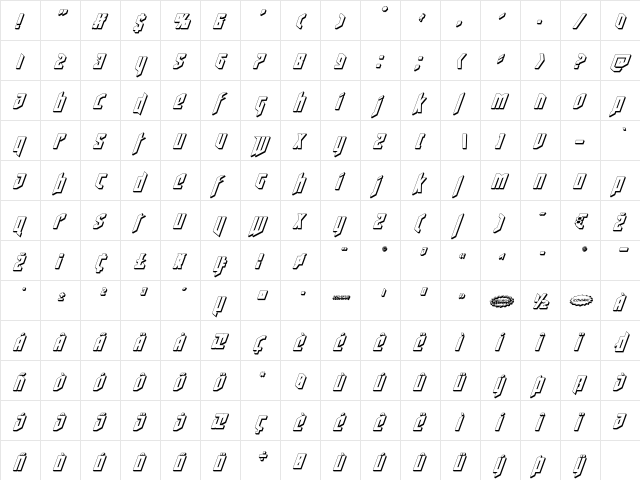
Deathshead 3D Italic Italic Font Preview
Deathshead 3D Italic Italic
Design Context for Deathshead 3D Italic Typeface
Deathshead 3D Italic carries an unsettling edge — its distorted letterforms are built to unsettle, perfectly suited to horror, Halloween, and dark creative work. The slanted form adds forward momentum and visual energy.
Perfect for anything that needs to unsettle — game titles, horror branding, and macabre invitations.
Font Pairing: Pair with a clean neutral sans-serif for body copy to let Deathshead 3D Italic's character lead without overwhelming the composition.
Pro Tip: Use Deathshead 3D Italic at larger display sizes for maximum impact. Consider generous tracking to let the disturbing character of each letterform breathe.